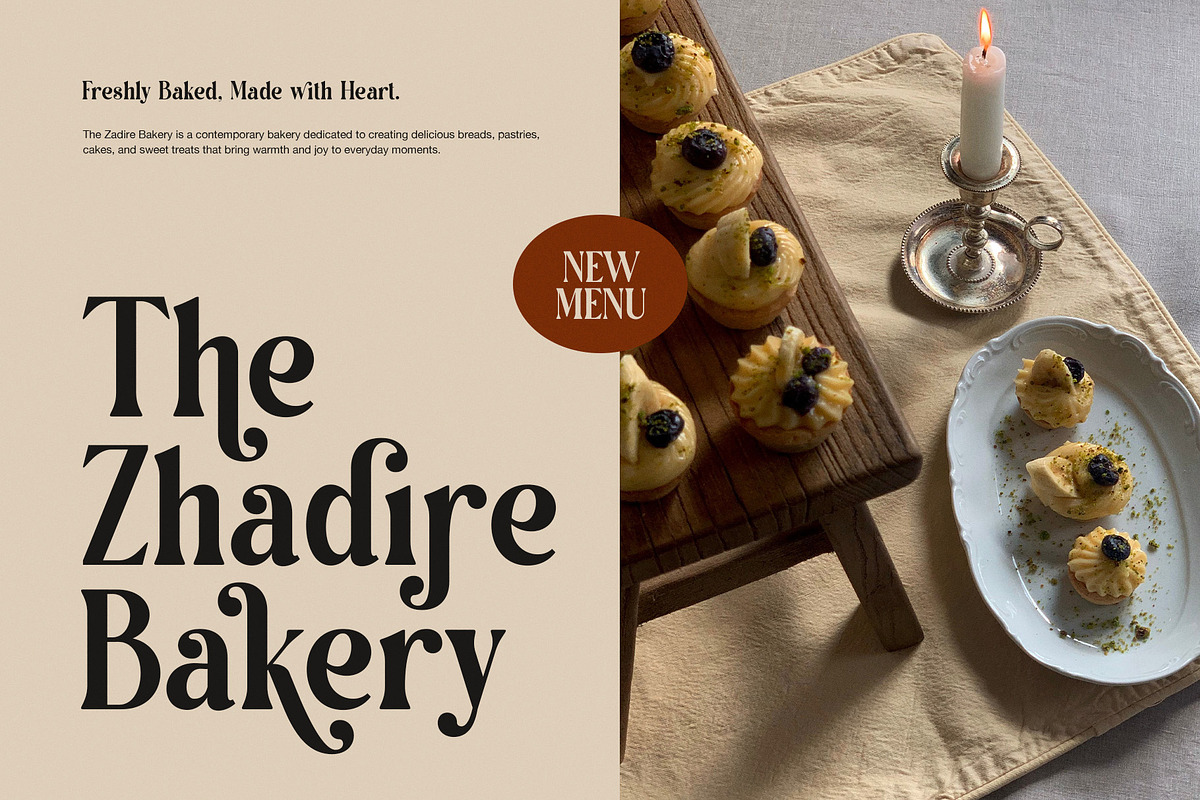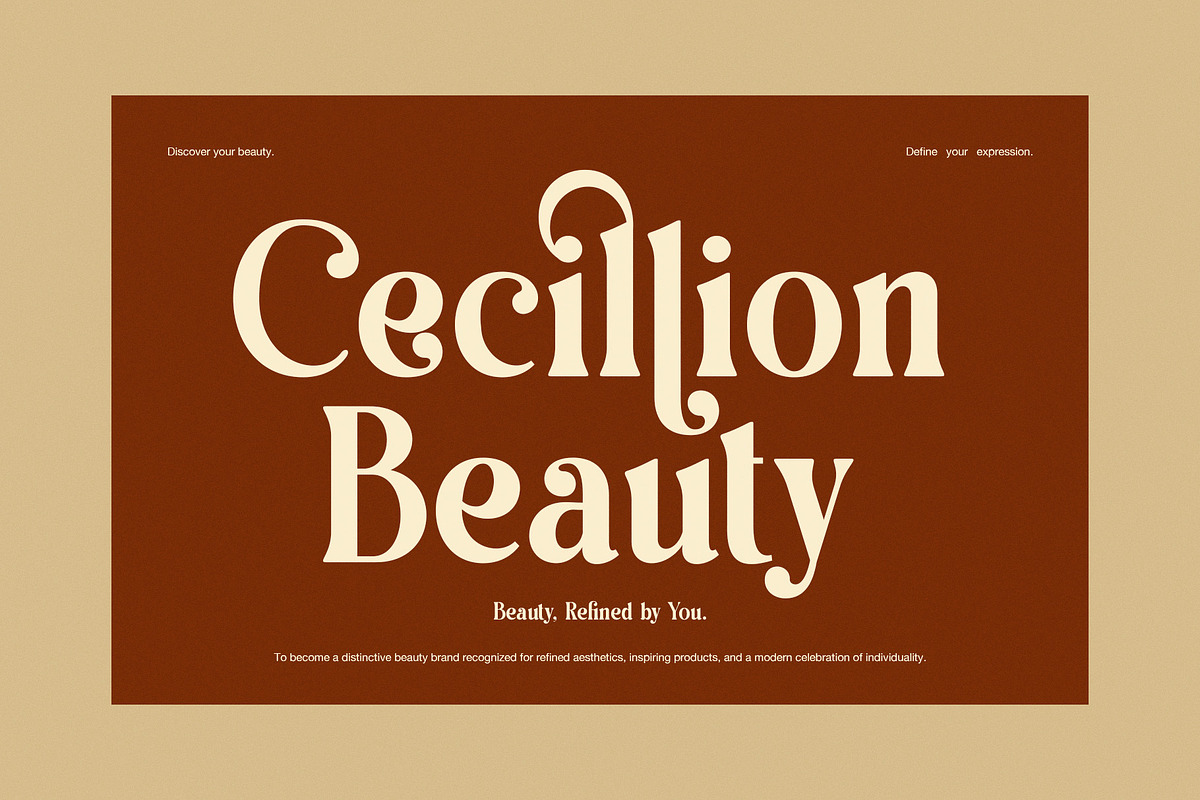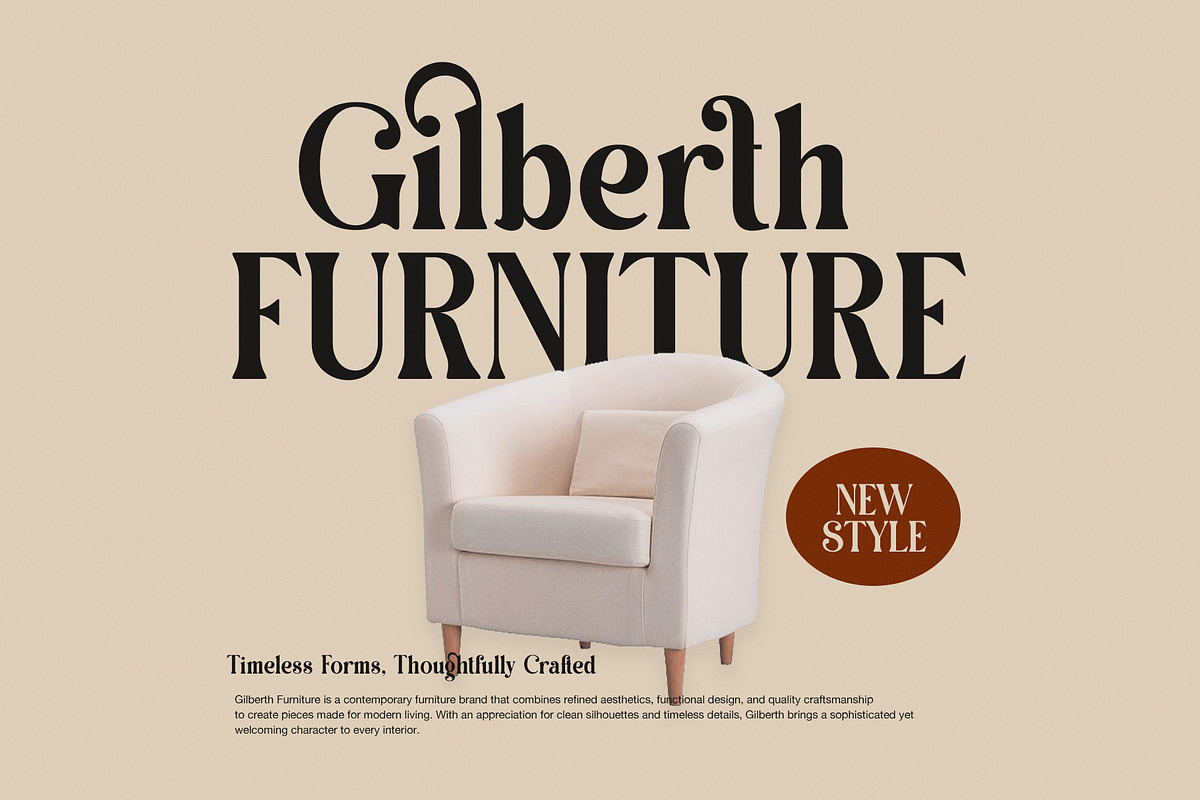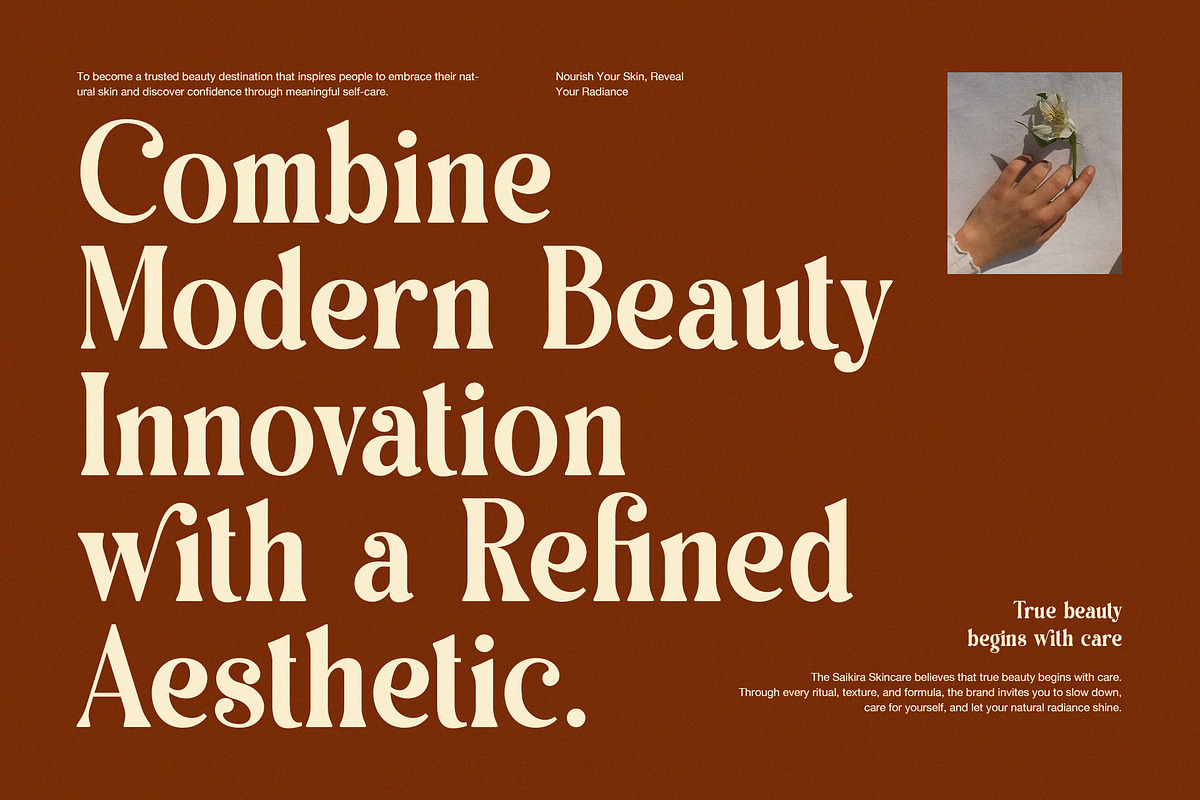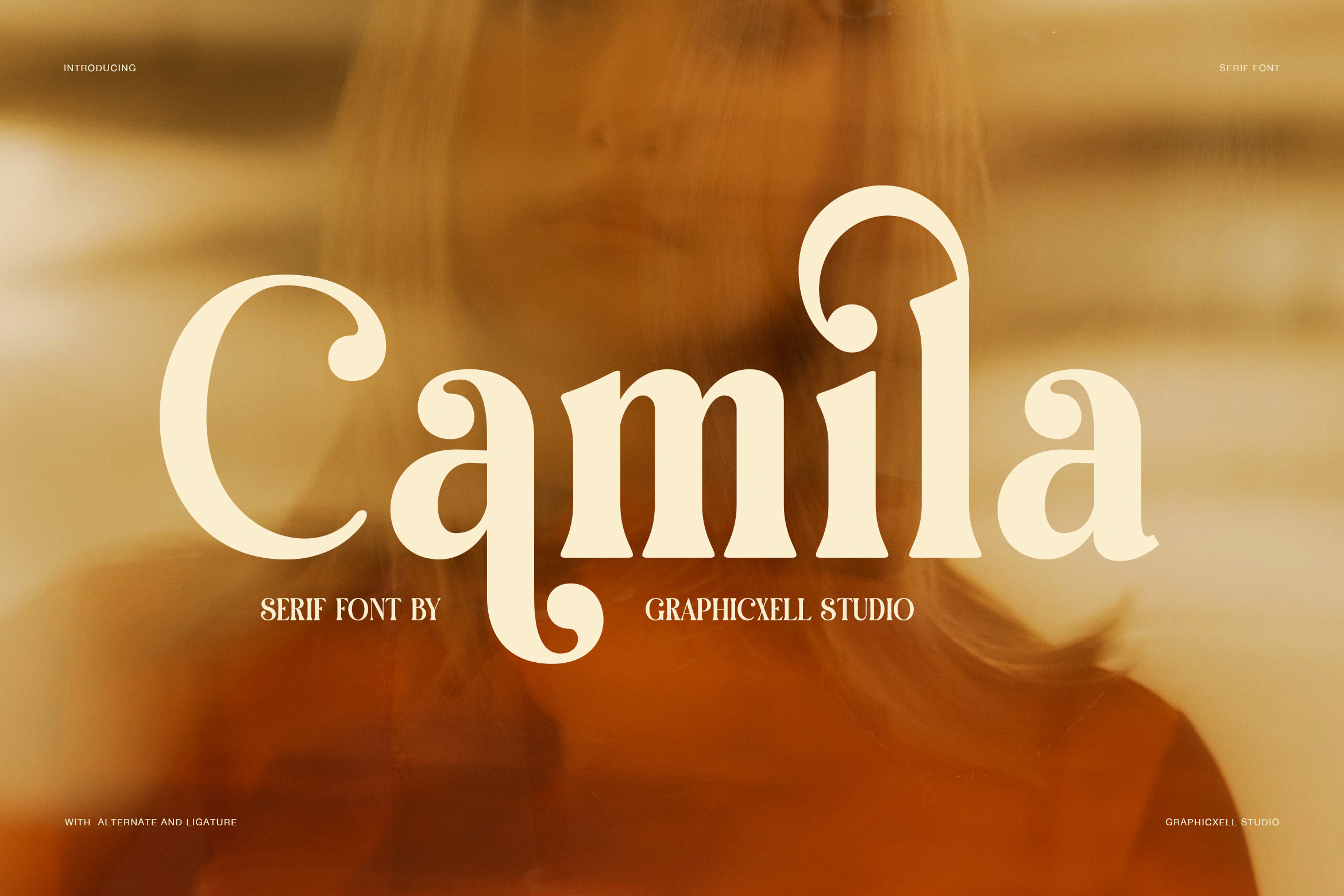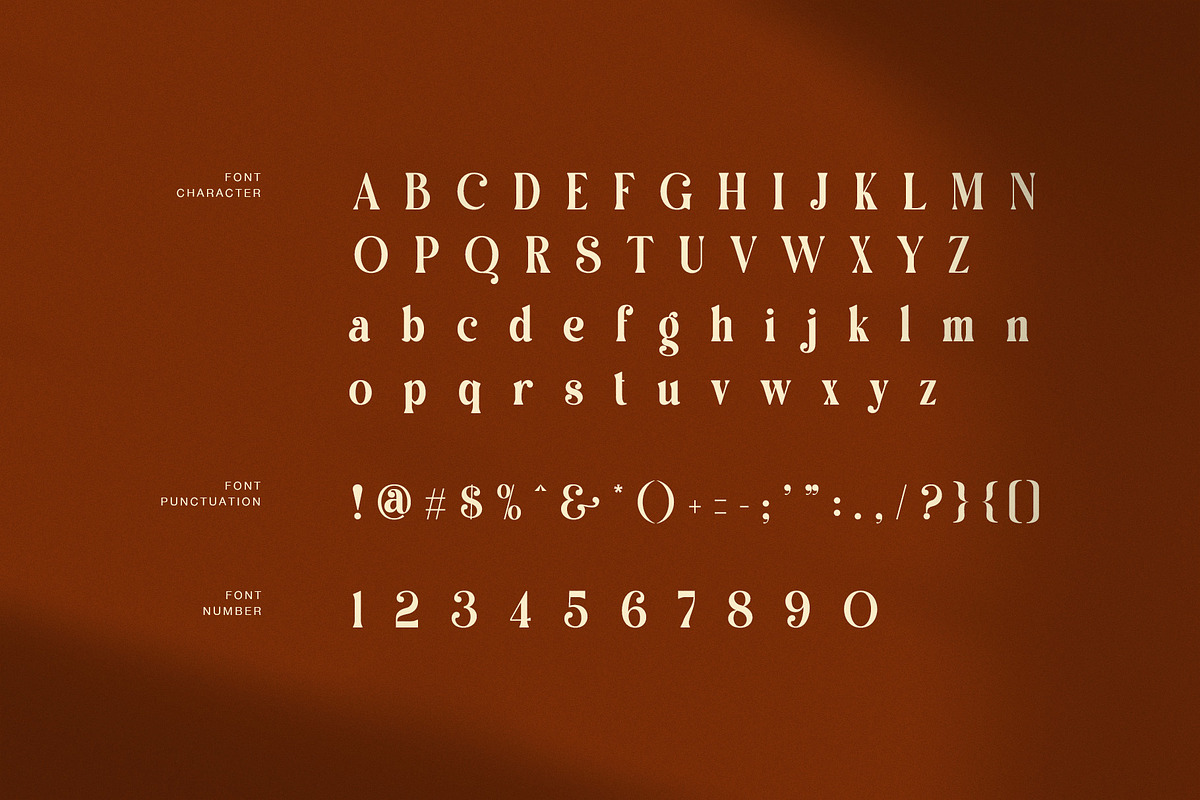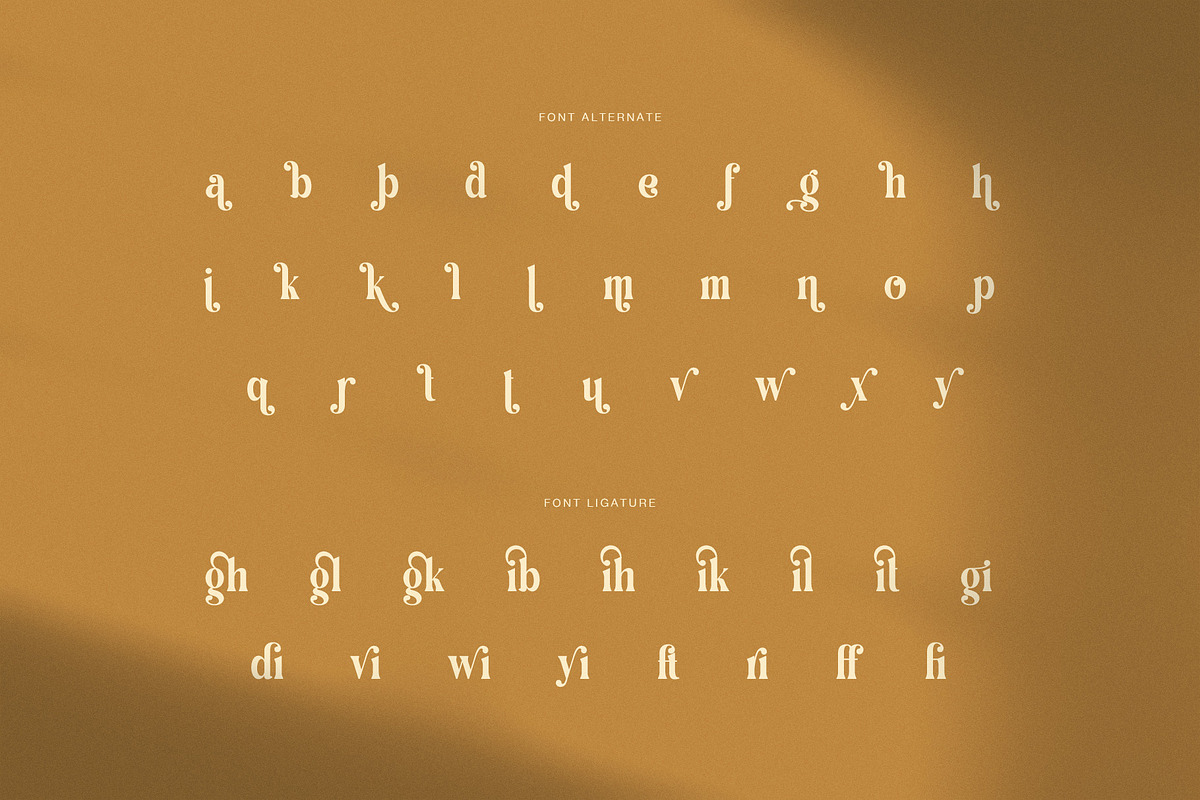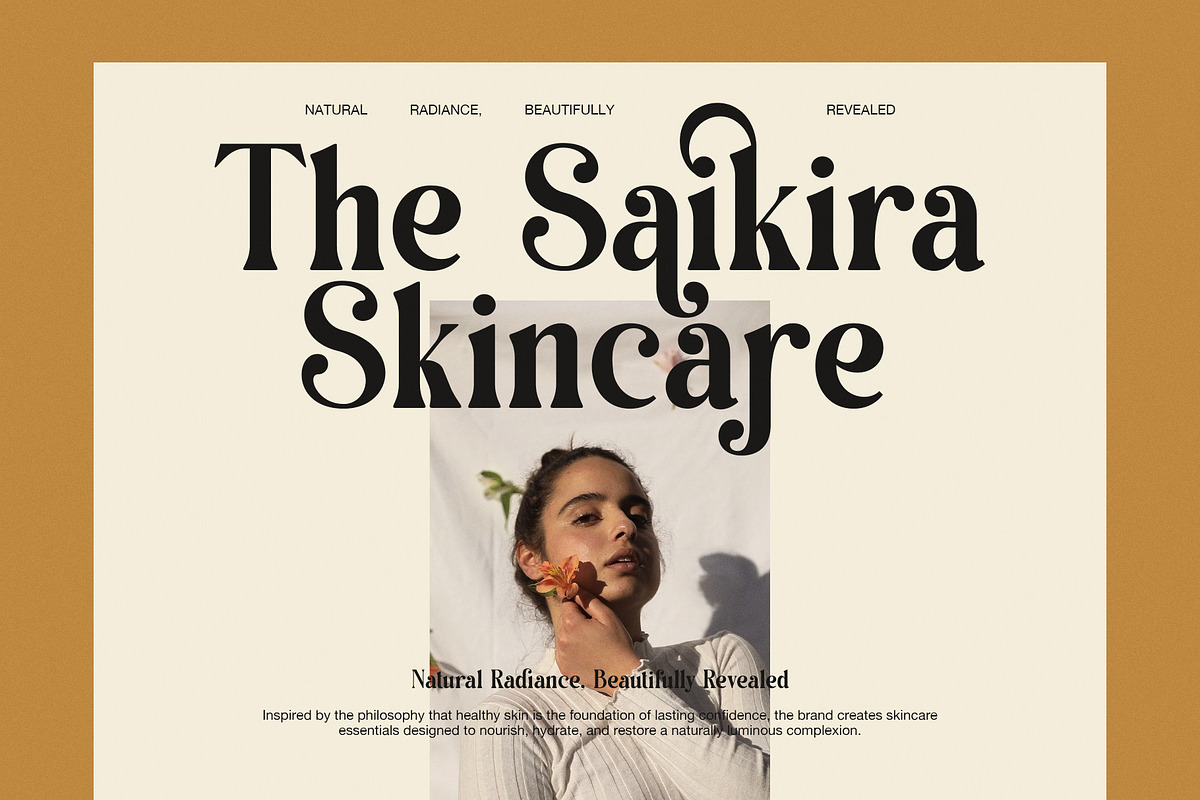
Camila Elegant Serif Font
Camila is a bold elegant serif font made for designs that need a strong visual voice with a refined finish. Its high-contrast strokes create a rich display style, while rounded curves and curled terminals add a warm, artistic touch. As a result, Camila feels confident, expressive, and polished without losing its classic serif roots.
The letterforms are especially effective at large sizes. Bold vertical strokes give headlines a solid presence, while fine details keep the shapes lively. In addition, selected characters feature distinctive swashes and curved endings that can turn a simple word into a custom-looking title.
Alternates and Decorative Ligatures
Camila includes alternate characters and ligatures, giving designers more freedom to shape their typography. Therefore, you can switch selected letters to create a softer, more decorative look or use the standard characters for a cleaner layout.
The alternate forms add variety to logos, headlines, and short phrases. Meanwhile, the ligatures create unique connections between selected letter pairs. This makes Camila especially useful when you want typography to feel personal rather than ordinary.
Perfect for Modern Branding
Camila works well across modern and classic visual styles. For example, you can use it for beauty and skincare branding, fashion logos, boutique identities, or luxury packaging. It also fits editorial layouts, posters, product labels, and social media graphics.
Use Camila for:
Beauty and skincare branding
Fashion and lifestyle logos
Luxury packaging
Editorial headlines
Boutique branding
Bakery and food packaging
Posters and campaign graphics
Product labels
Social media designs
Moreover, Camila pairs beautifully with clean sans serif fonts. This creates a useful contrast between expressive headlines and simple supporting text.
Designed for Creative Projects
Camila is made for designers who want more than a standard serif. Its bold structure makes short words stand out, while the curved details bring personality to each composition. Consequently, it can add character to a brand name, headline, invitation, label, or promotional design.